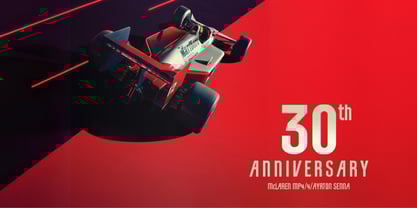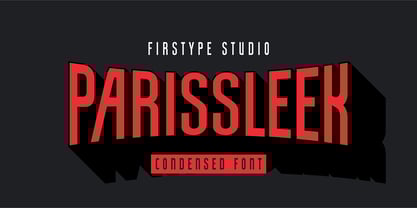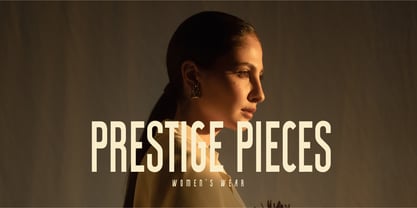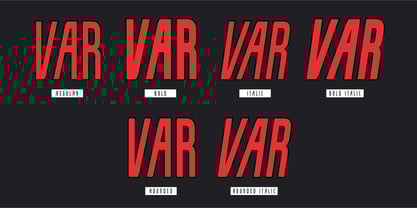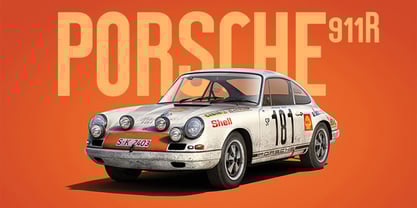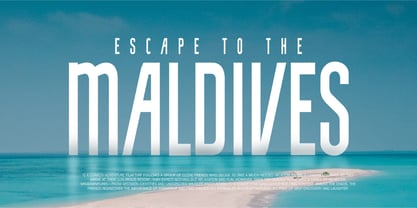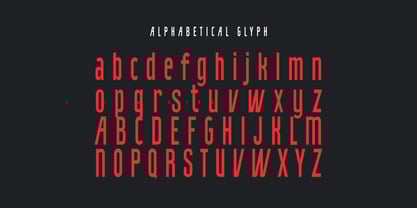
Introducing ParisSleek, a modern, condensed font designed with elegance and precision, ideal for cinematic and sophisticated design projects. With its tall, narrow letterforms and clean lines, ParisSleek exudes a sleek and refined aesthetic, perfect for projects that require a sense of minimalism, style, and class. This typeface is a great choice for film titles, high-fashion branding, or any design where subtle luxury and sharpness are key.
Inspired by the effortless elegance of Parisian style, ParisSleek combines simplicity with a touch of sophistication. Its condensed form allows it to command attention without taking up too much space, making it highly functional for both large headlines and more compact designs. The result is a versatile typeface that speaks to modern tastes, while still carrying an air of timeless elegance.
ParisSleek draws inspiration from the chic, minimalist design language often seen in high fashion and contemporary film posters. The goal was to create a font that balances sharp, geometric lines with a graceful, understated aesthetic, much like the city of Paris itself—known for its blend of old-world charm and cutting-edge style.
The font’s condensed form gives it a strong vertical presence, while the clean, straight edges bring a sense of order and refinement, perfect for creating sophisticated yet bold visuals.
ParisSleek is designed for professionals in need of a font that combines elegance, modernity, and a sense of sleekness. Its condensed, stylish design makes it ideal for:
- Film and Television Creators: Whether for movie titles, opening credits, or promotional posters, ParisSleek adds an air of modern sophistication and visual impact, perfectly suited for cinematic projects.
- Fashion and Luxury Brands: ParisSleek’s narrow, elegant form is an excellent fit for high-end branding, product packaging, and marketing materials in the fashion, cosmetics, or luxury sectors.
- Magazine and Editorial Designers: With its refined and modern style, ParisSleek works beautifully in headlines, editorial spreads, and magazine covers, bringing a polished look to any publication.
- Creative Agencies and Graphic Designers: For branding projects that require a modern yet timeless typeface, ParisSleek offers versatility and elegance, whether used in logos, business cards, or websites.
- Event Planners for High-End Gatherings: Ideal for invitations, event signage, and marketing materials, ParisSleek communicates class and exclusivity for events such as film festivals, galas, and runway shows.
ParisSleek is a perfect choice for designers looking for a font that embodies elegance, style, and sophistication, while still maintaining a strong, modern aesthetic. Whether for film titles, high-fashion branding, or any project that requires sleek refinement, ParisSleek delivers both form and function.